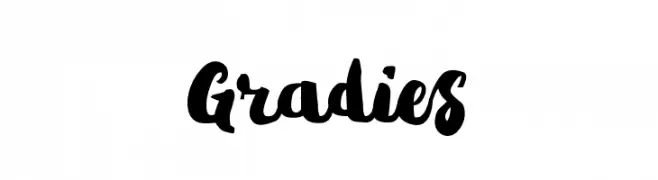
A bold, expressive handwritten font with a playful and dynamic style.
A graceful script font with flowing, interconnected cursive letters.
A bold, dynamic script font with fluid, connected letterforms and elegant curves.
A flowing, elegant cursive font with a classic yet modern appeal.
A graceful script font with fluid, connected strokes and a natural handwriting style.